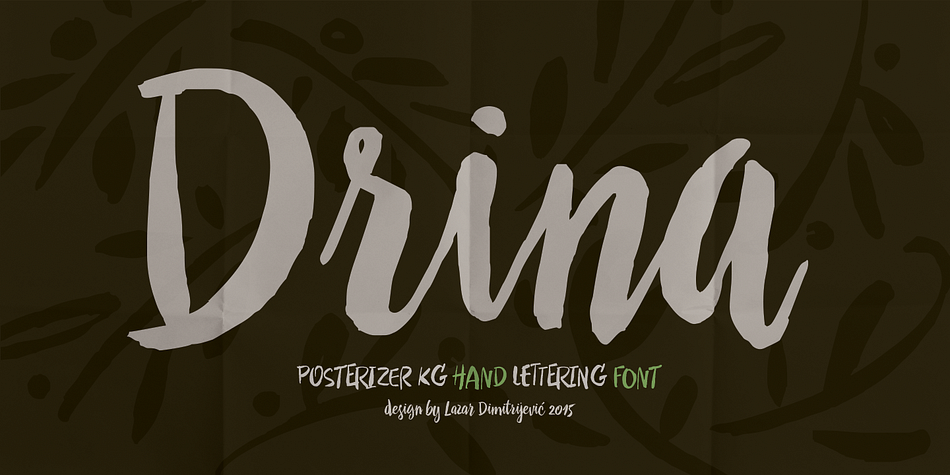
Drina Font Drina Regular is a Regular TrueType Font. It has been downloaded 312 times. 0 users have given the font a rating of 0.0 out of 5. You can find more information. Drina Font | Webfont & Desktop | MyFonts![]() 16 нояб. 2019 г. Free download Drina for MacOS, Windows, Sketch, Figma, Photoshop and Web site. In all formats (Drina woff2, Drina woff, Drina ttf. DRINA Font :: Behance![]() 2 мар. 2016 г. Drina is a script handwritten font with a casual and modern look. Because of the spontaneity there are plenty of Standard and Discretionary. Drina Font | Free Download For WEB![]() 10 нояб. 2016 г. Drina cyrillic font | Free download. Drina is a script handwritten font with a casual and modern look. Drina Cyrillic Font | Free Download![]() Drina is a script handwritten font with a casual and modern look. Because of the spontaneity there are plenty of Standard and Discretionary Ligatures to. Drina Font | Webfont & Desktop | MyFonts![]() Drina is a script handwritten font with a casual and modern look. Because of the spontaneity there are plenty of Standard and Discretionary Ligatures to. Location, Territorial Coverage, And Areas By Zones Of Protection.![]() Drina font with the Regular style belongs to the Drina family. Examples of the Drina Regular font can be found on the font site AZFonts. Font designer - unknown. Drina | Lettering Fonts, Hand Lettering Fonts, Lettering Fonts Design![]() 18 авг. 2021 г. Drina Font is a brush hand-lettered typeface that comes with cute irregular shapes and baselines. You can use this font for postcards. Drina Regular : Download For Free, View Sample Text, Rating And.![]() Шрифт Drina. Размер файла: 448.79 KB. Скачайте бесплатно в один клик. Также вы можете посмотреть как выглядит шрифт онлайн и добавить его в коллекцию. Drina FontOn this page you can download the font Drina version Version 1.000 2015 initial release, which belongs to the family Drina (Subfamily Regular. Drina Fonts Free Download - OnlineWebFonts.COM![]() Font Style Information ; Type, TTF ; Category, Uncategorized ; PostScript Name, Drina ; Number of Glyphs, 974 ; Units per EM, 1000. Drina Cyrillic Font | Free Download | Lettering Fonts Design.![]() 3 июн. 2015 г. Drina is a script handwritten font with a casual and modern look. Because of the spontaneity there are plenty of Standard and Discretionary. Drina Font | Webfont & Desktop | MyFonts![]() Drina шрифт вы можете скачать на этой странице версии Version 1.000 2015 initial release, который относится к семейству Drina (подсемейство Regular. DRINA Font :: Behance![]() Шрифт Drina, лицензия и условия использования, символы, категории, поддерживаемые языки, ссылка для скачивания. Expressive Lettering Projects :: Photos, Videos, Logos.![]() Шрифт Drina, относится к категориям Без категории и доступен в начертаниях Regular, скачивай в ZIP архиве или отдельными файлами ttf, otf, woff. Drina | Lettering Fonts, Hand Lettering Fonts, Lettering Fonts Design![]() 10 мар. 2017 г. Drina is a script handwritten font with a casual and modern look. There are ligatures created for Cyrillic too, more then 100 symbols. Drina Cyrillic Font | Free Download | Lettering Fonts Design.![]() 16 нояб. 2019 г. Download Drina. The font is available in all formats (Drina woff2, Drina woff, Drina ttf, Drina eot) and applicable to the website. Font Drina Regular - Download Font![]() 16 нояб. 2019 г. Скачать шрифт Drina. Шрифт доступен во всех форматах (Drina woff2, Drina woff, Drina ttf, Drina eot) и применим для веб-сайта. Drina: Download For Free And Install For Your Website Or Photoshop.![]() Drina Regular. Характеристики шрифта. Категории: Рукописные; Размер шрифта: 591.77 килобайт; Формат шрифта: ttf. Скачать шрифт Drina Regular. Font Drina Download Free (2024) | ||